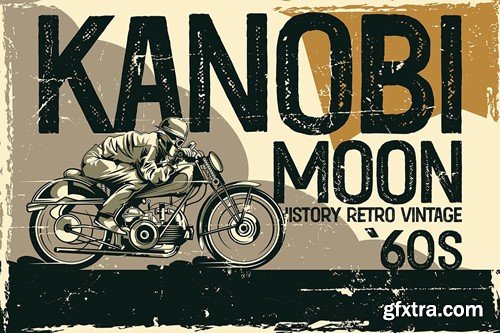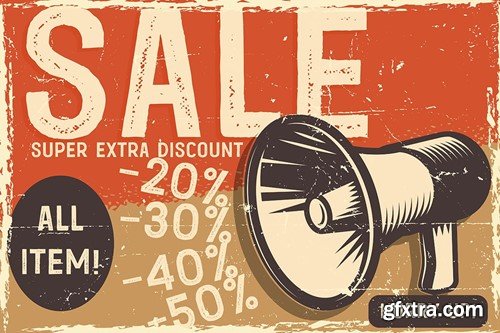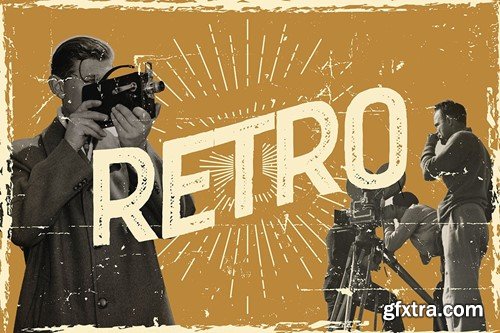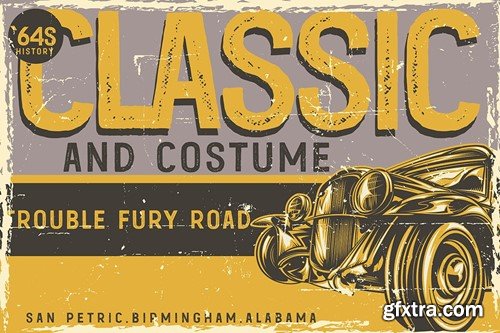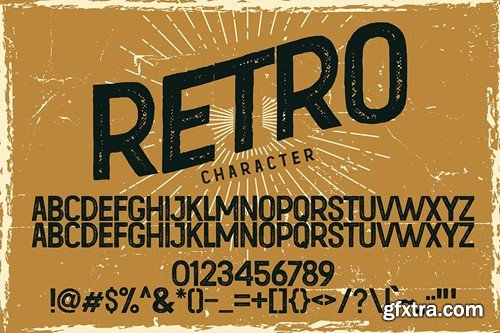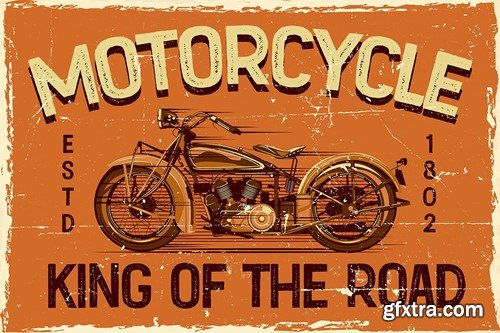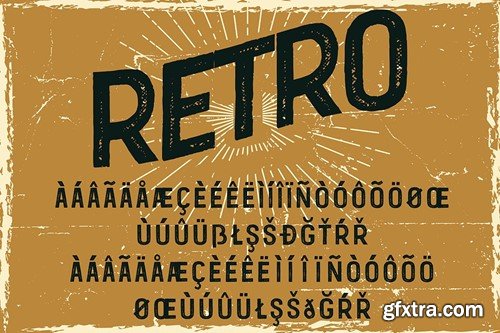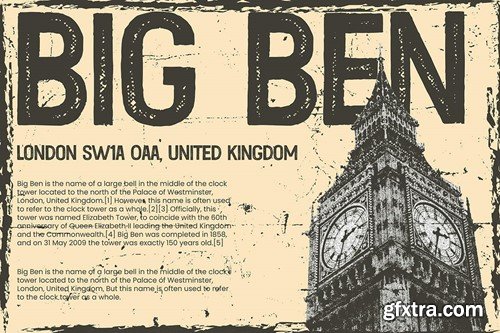
Moonkanobi - Retro Font BR6NAAW
Moonkanobi - Retro Font
Introducing Moonkanobi, a simple and retro font. So perfect for you who needs a typeface for logo designs, magazine, social media, brochure, and many more.
• Uppercase
• Punctuation
• Numerals
• Multilingual Support